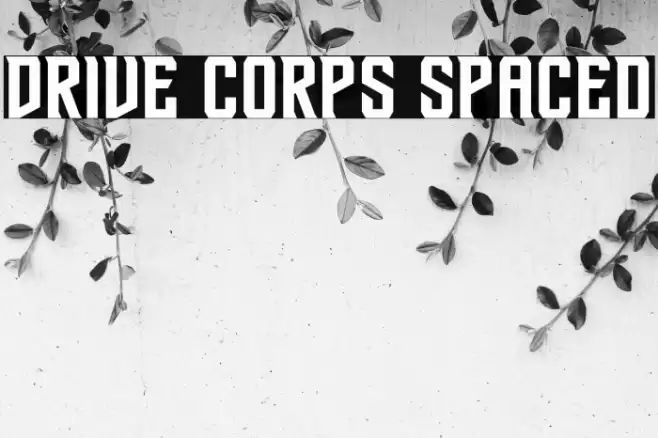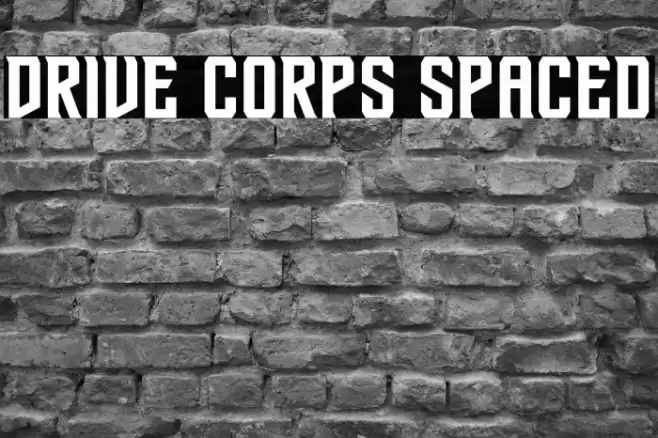
Drive Corps Spaced Font
Drive Corps Spaced Description
This font features a bold and geometric design with strong, angular lines and a distinct, industrial feel. The characters are uniformly spaced, creating a cohesive and structured appearance. The uppercase letters are particularly striking, with sharp edges and a commanding presence. The numerals and special characters maintain the same boldness and angularity, ensuring consistency across all elements. This font is ideal for projects that require a modern and assertive look, such as branding, posters, or signage. Its unique style makes it stand out while remaining legible and impactful.
A bold, geometric font with angular lines and an industrial feel from Uncategorized fonts.
- Proposed Projects: Ideal for branding, posters, signage, and any project needing a modern, assertive look.